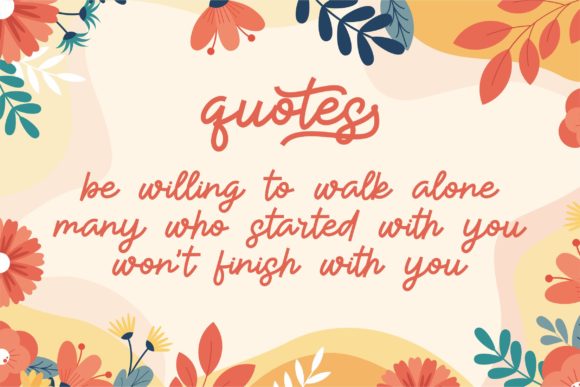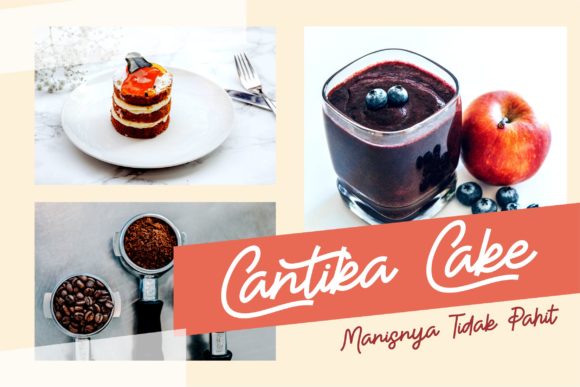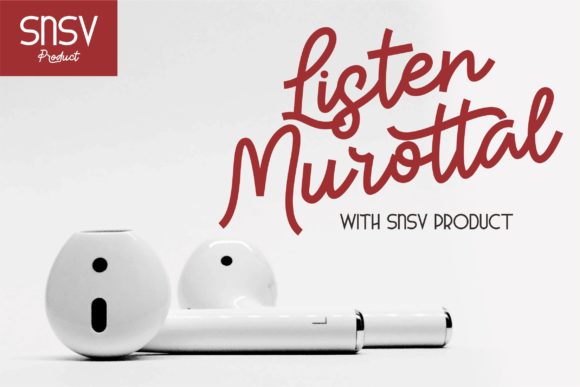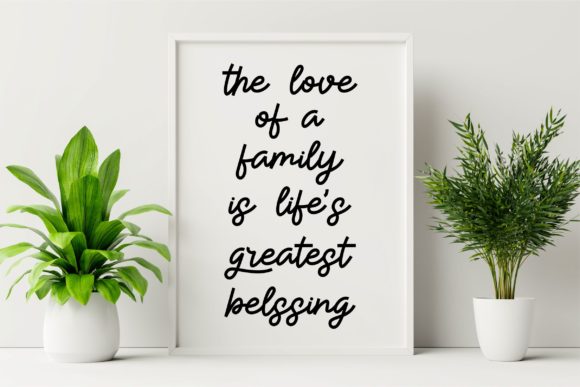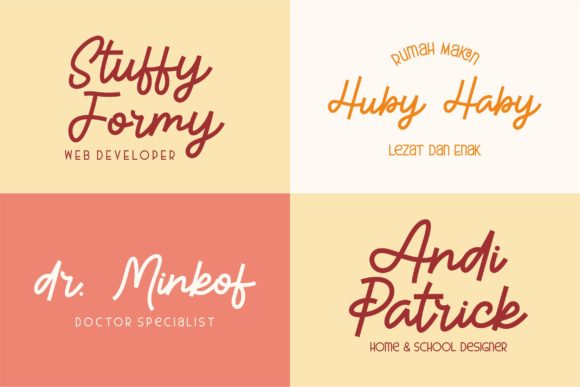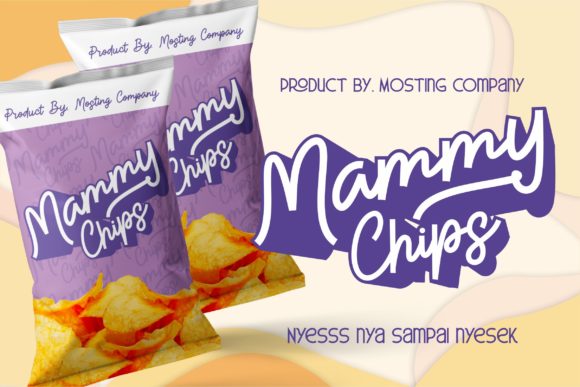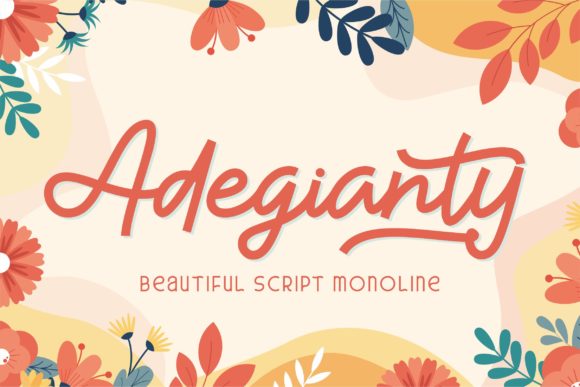
The Enchanting Adegianty Font: A Designer’s Dream Come True
Have you ever been in the middle of a design project, pouring your heart and soul into it, only to hit a roadblock when it comes to finding the perfect font? I certainly have, and it’s frustrating. But today, I’m excited to share with you a stunning script font that has become a go-to in my design toolkit: Adegianty. This beautiful font has a way of making every project look elegant and charming, and I’m eager to dive into its features, uses, and some practical tips on how to make the most of it.
A Personal Encounter with Adegianty
I first stumbled upon Adegianty while working on a wedding invitation project for a close friend. The client wanted something that exuded elegance and romance, but still felt approachable and personal. As I scrolled through font after font, Adegianty caught my eye. Its smooth lines, gorgeous glyphs, and varying baseline immediately drew me in. I knew right then and there that I had found the perfect fit.
So, what makes Adegianty so special? Let’s break it down:
- ✨ Elegant and Charming: Adegianty feels equally charming and elegant. It’s perfect for projects that need a touch of sophistication.
- ✅ Varying Baseline: The font features a varying baseline, which adds a touch of whimsy and handmade charm to your designs.
- ✅ Smooth Lines and Glyphs: The lines are smooth, and the glyphs are gorgeous. This font is a true gem for any designer.
Now, no font is perfect, and Adegianty does come with a few minor quirks:
- 🤔 Learning Curve: While the font is easy to use, it may take some time to get familiar with all the glyphs and swashes. But trust me, it’s worth it.
- ⚠️ Legibility at Small Sizes: Like many script fonts, Adegianty can be a bit tricky to read at very small sizes. Make sure to test it out before finalizing your design.
The Story Behind Adegianty
While I couldn’t find much information on the origins of Adegianty, it’s clear that the designer put a lot of thought into crafting a font that’s both elegant and charming. Whether it’s for a wedding invitation, a logo, or a greeting card, Adegianty is sure to make your designs shine.
| What is Adegianty best used for? | Adegianty is perfect for projects that need a touch of elegance and charm, such as wedding invitations, thank you cards, quotes, greeting cards, logos, and business cards. |
| Is Adegianty easy to use? | Yes, Adegianty is relatively easy to use, especially if you’re familiar with script fonts. However, it may take some time to get used to all the glyphs and swashes. |
| Is Adegianty available in different languages? | As a PUA encoded font, Adegianty has a wide range of glyphs and swashes. However, it’s best to check with the designer or font provider to see if it’s available in specific languages. |